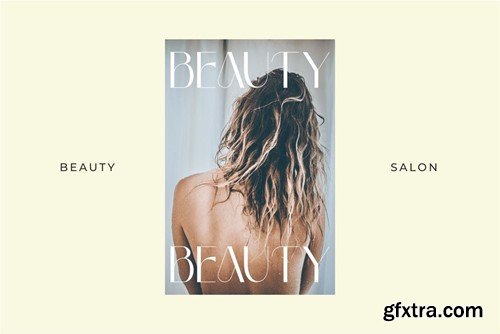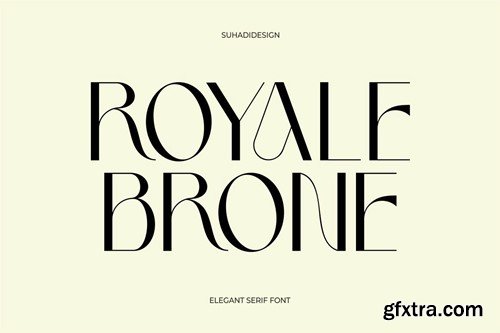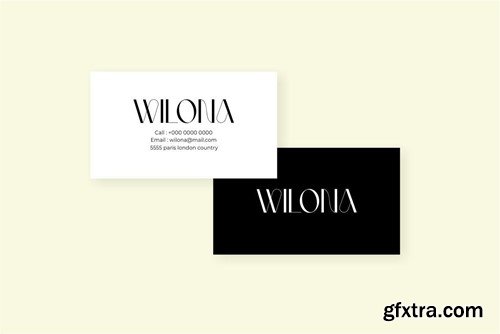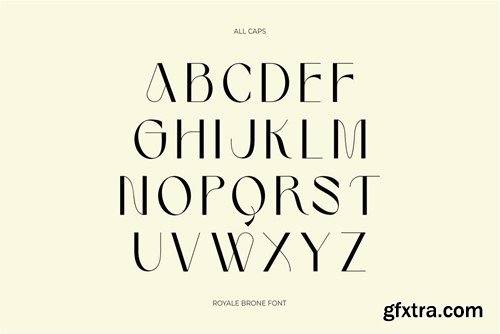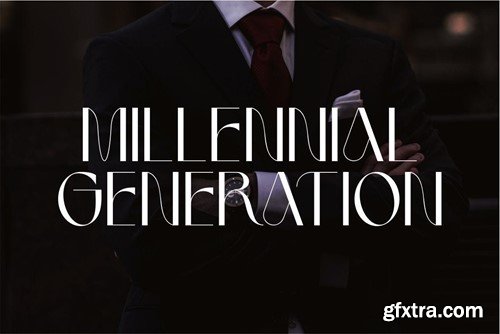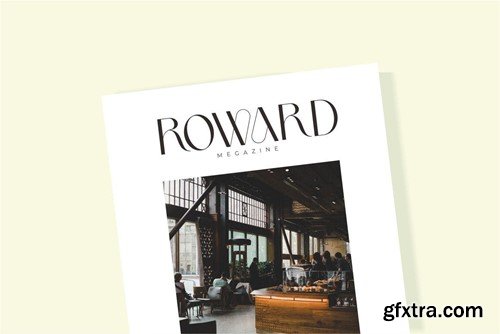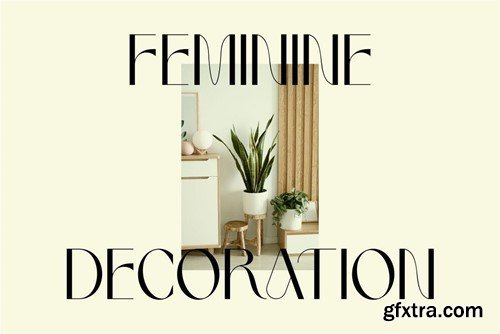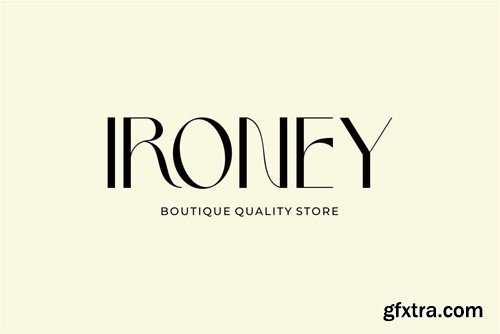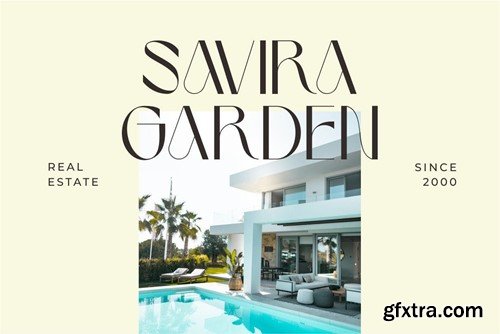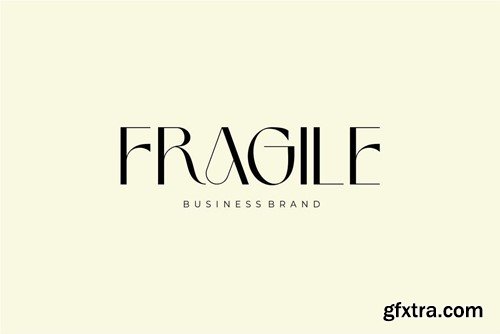
Royale Brone Elegant Stylish Serif Font 2SX3ZGK
Royale Brone Elegant Stylish Serif Font
Hi ladies and gentlemen! The latest elegant minimalist stylish font has arrived, which is a font that many ladies and gentlemen are looking at. Namely the Royale Brone font. The Royale Brone font is a stylish and elegant serif font. with an elegant modern style, it is a market favorite. We keep this font looking elegant, classy, ​​stylish. Royale Brone Font is a great choice for magazines, design, books, publications, brand names, business cards, social media, beauty, classy design, newspapers, branding and other projects. The Royale Brone font is here to improve the quality of your designs.